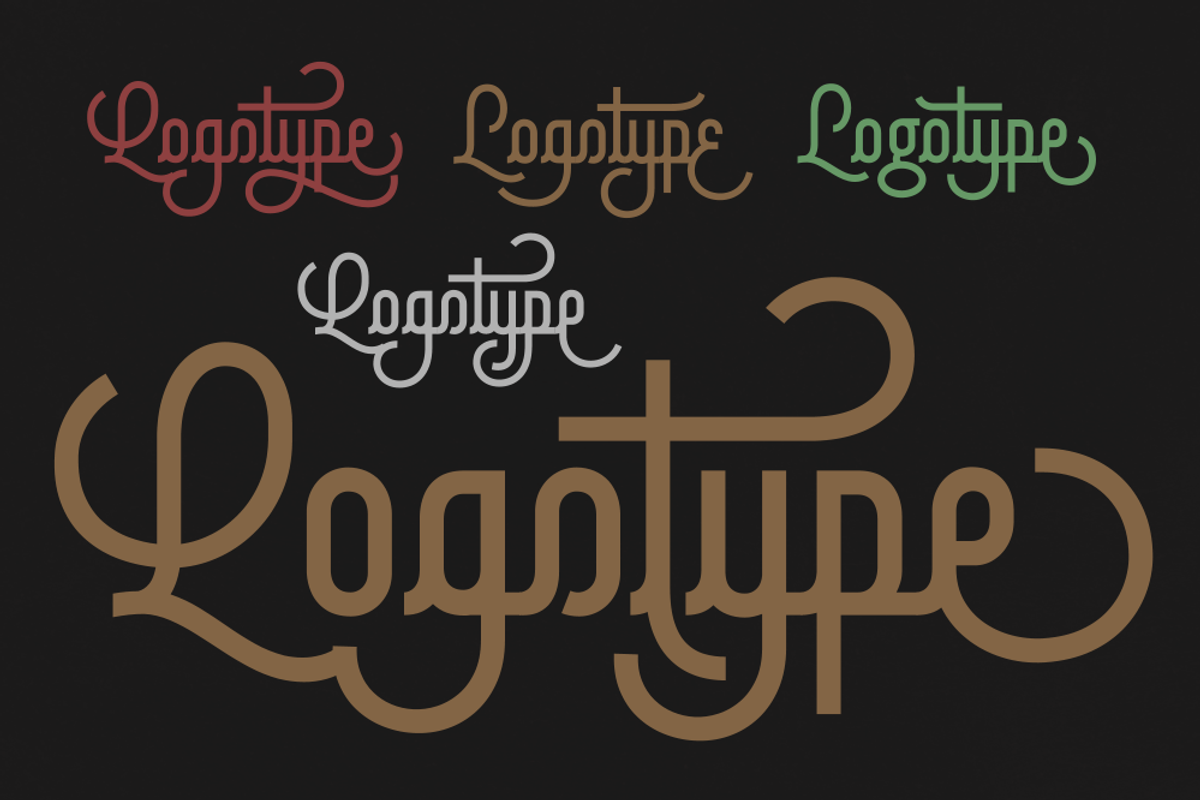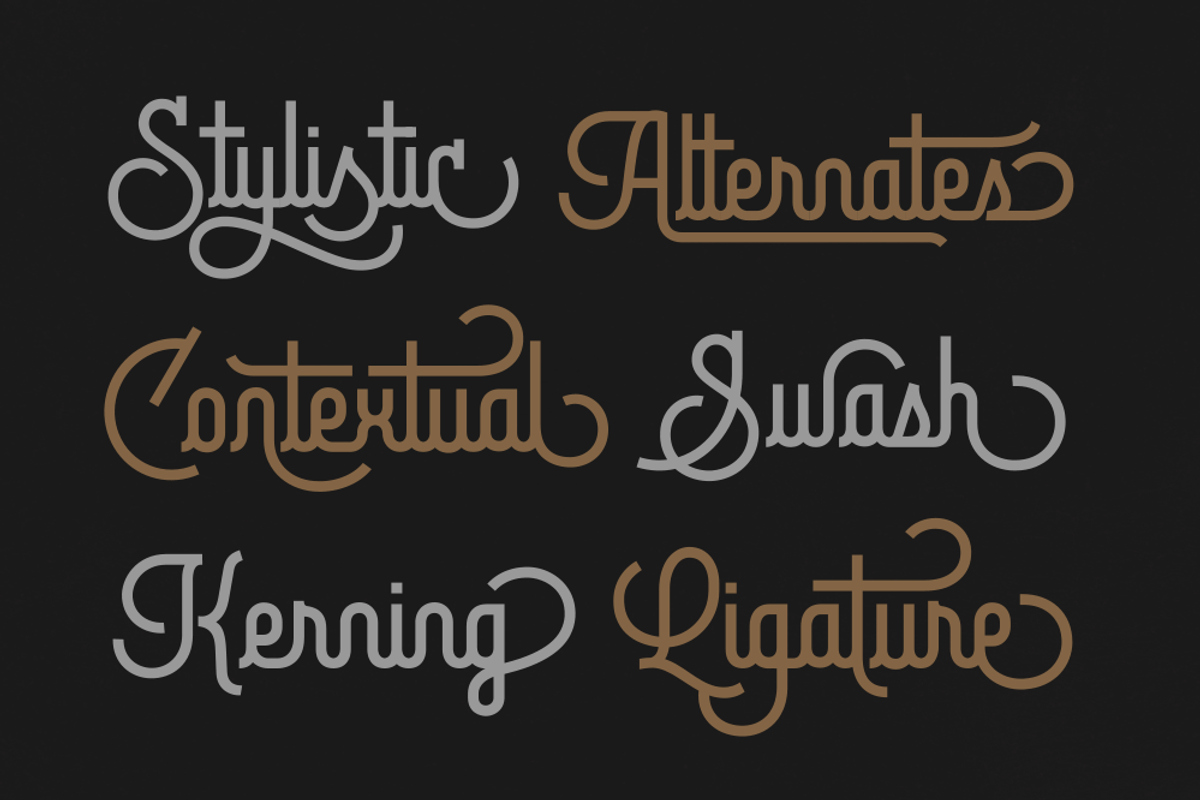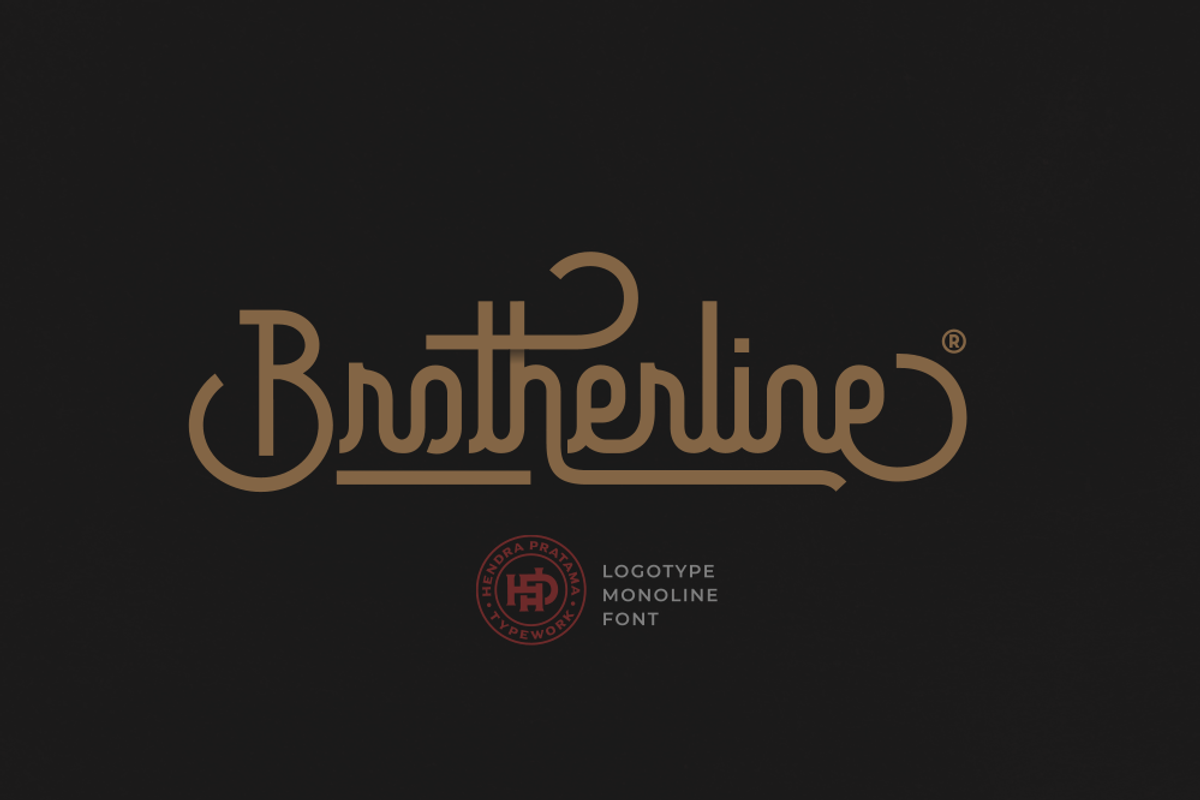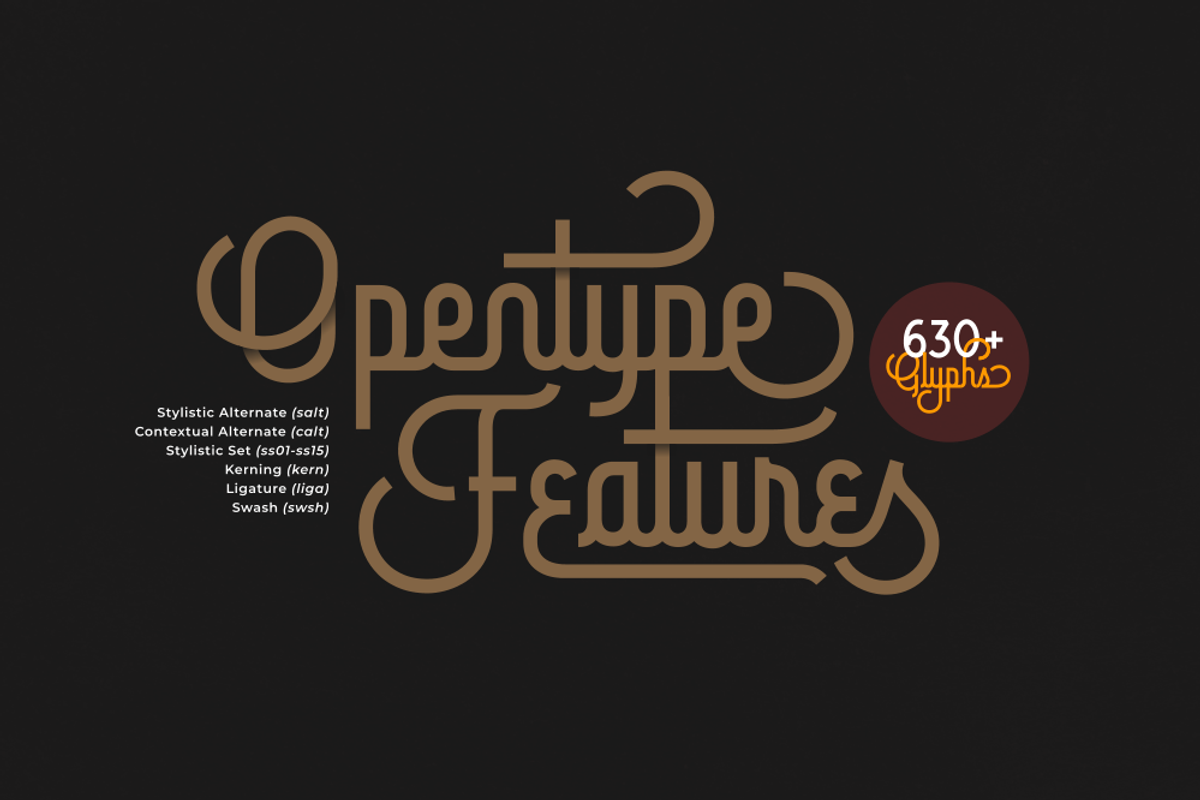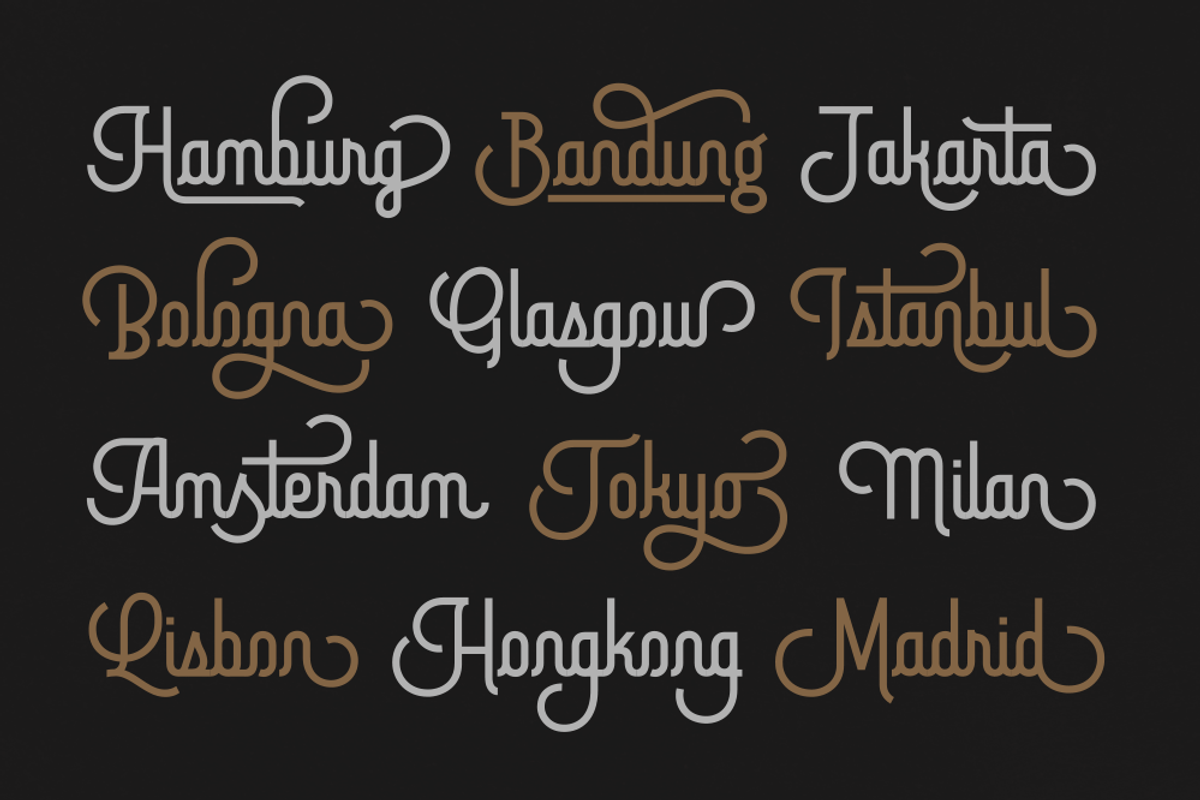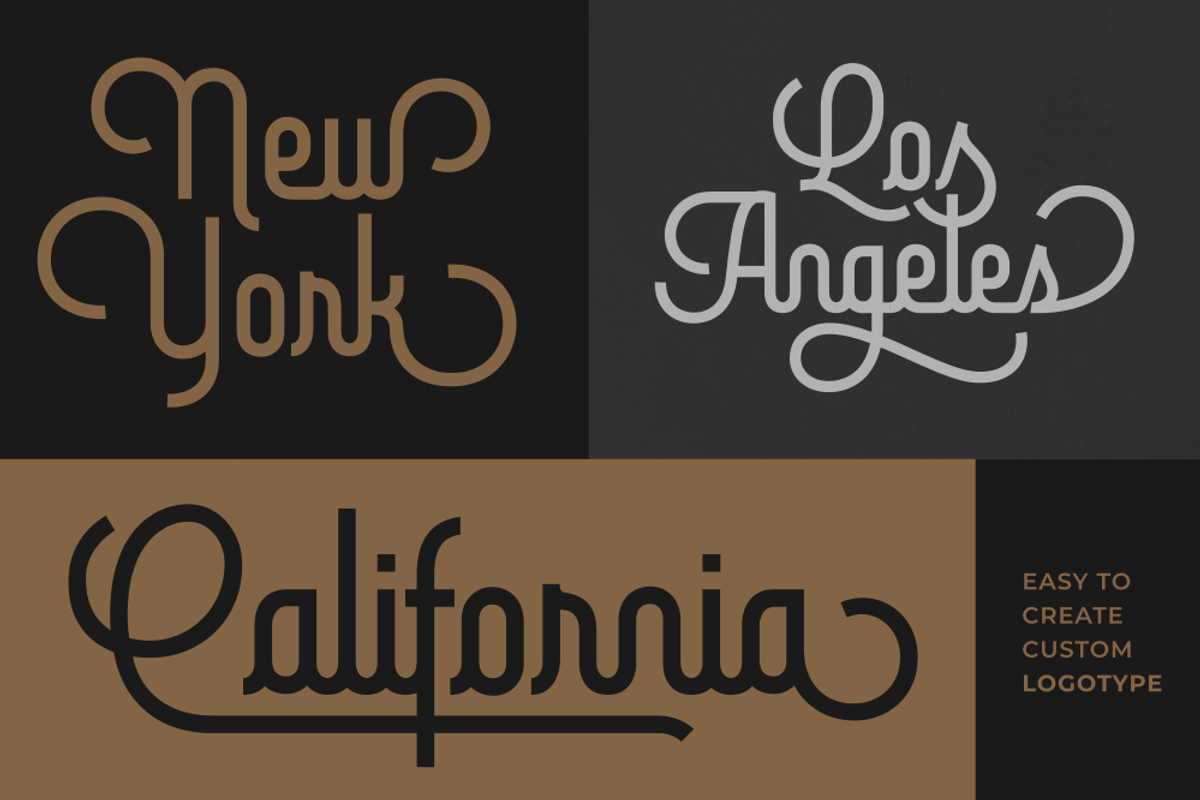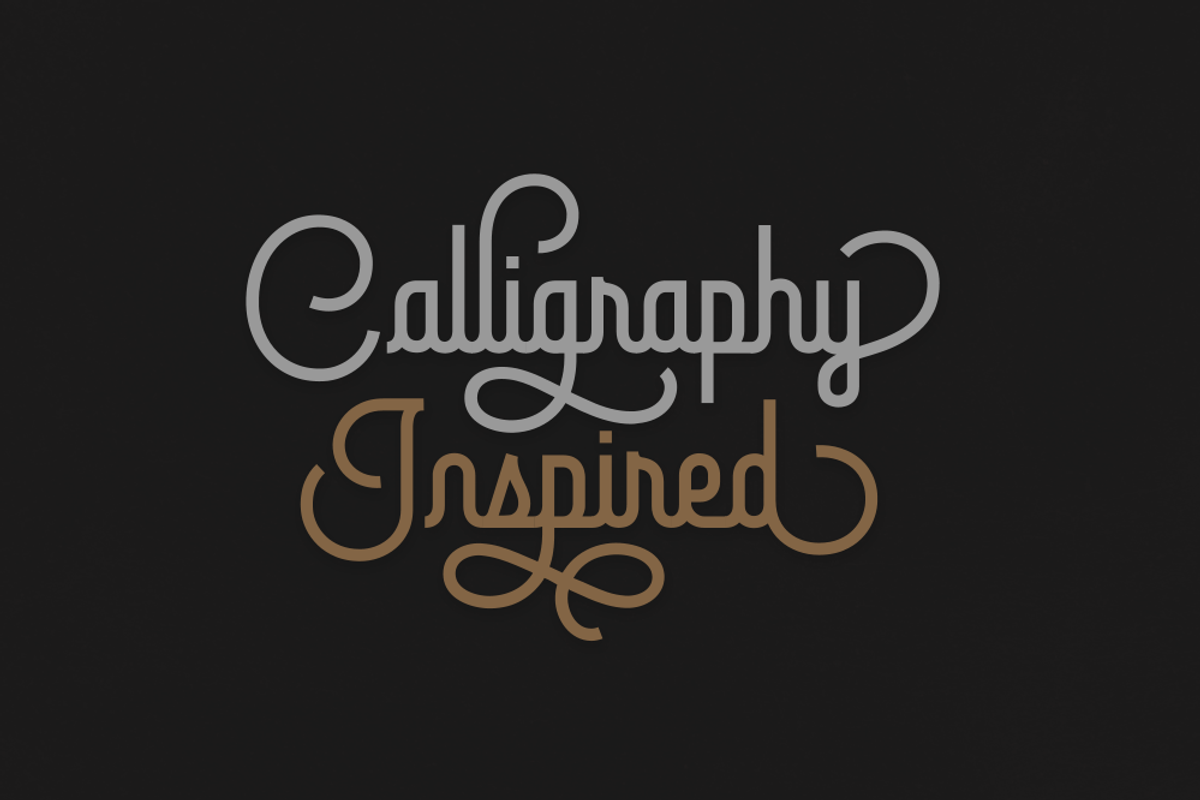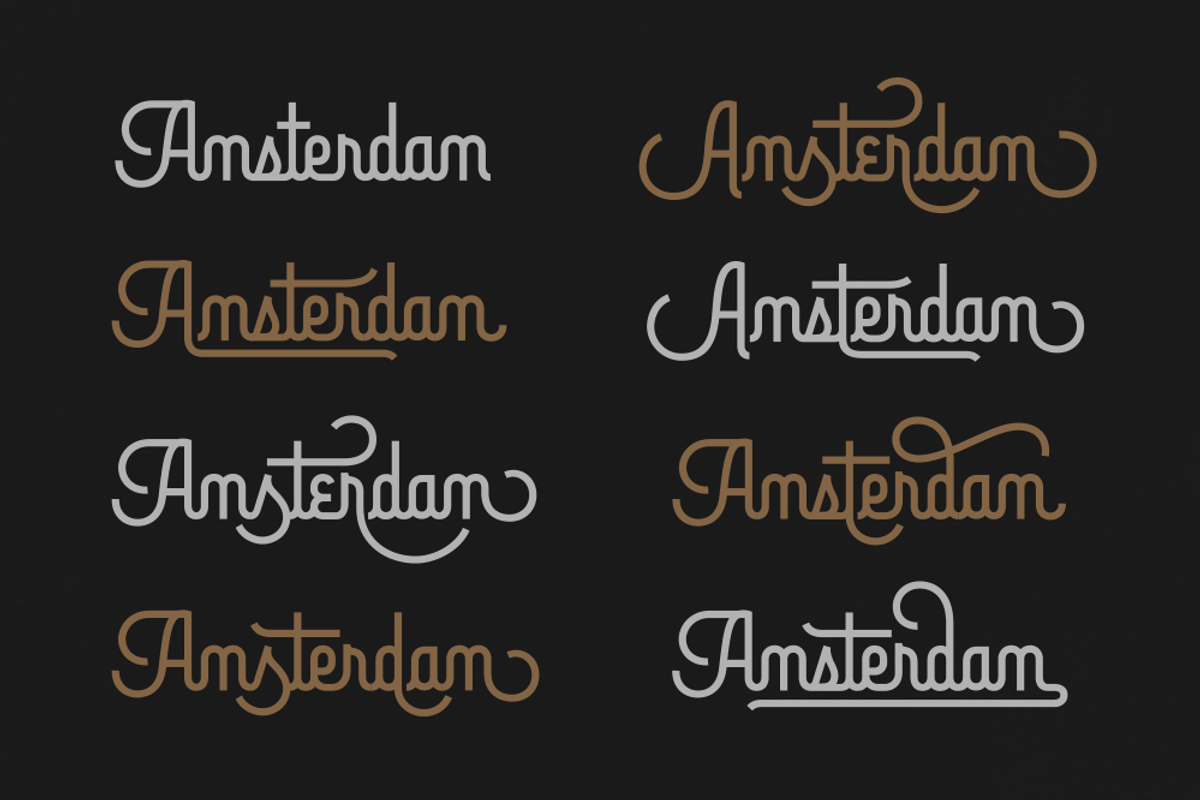
Brotherline - Logotype Font
Brotherline is a connected script built from a single bold mono-line. Inspired by many hand-lettering and various calligraphy style. Curves were smooth and circle shaped with square cap. This font is a good choice for Logotype and Signboard.
Support more than 74 Languages
Support OpenType Features
Stylistic Set - Lowercase alternate up to 12 variant per-letter
- Total 633 Glyphs
- Stylistic Alternate
- Contextual Alternate
- Swash
- Stylistic Set - Lowercase alternate up to 12 variant per-letter